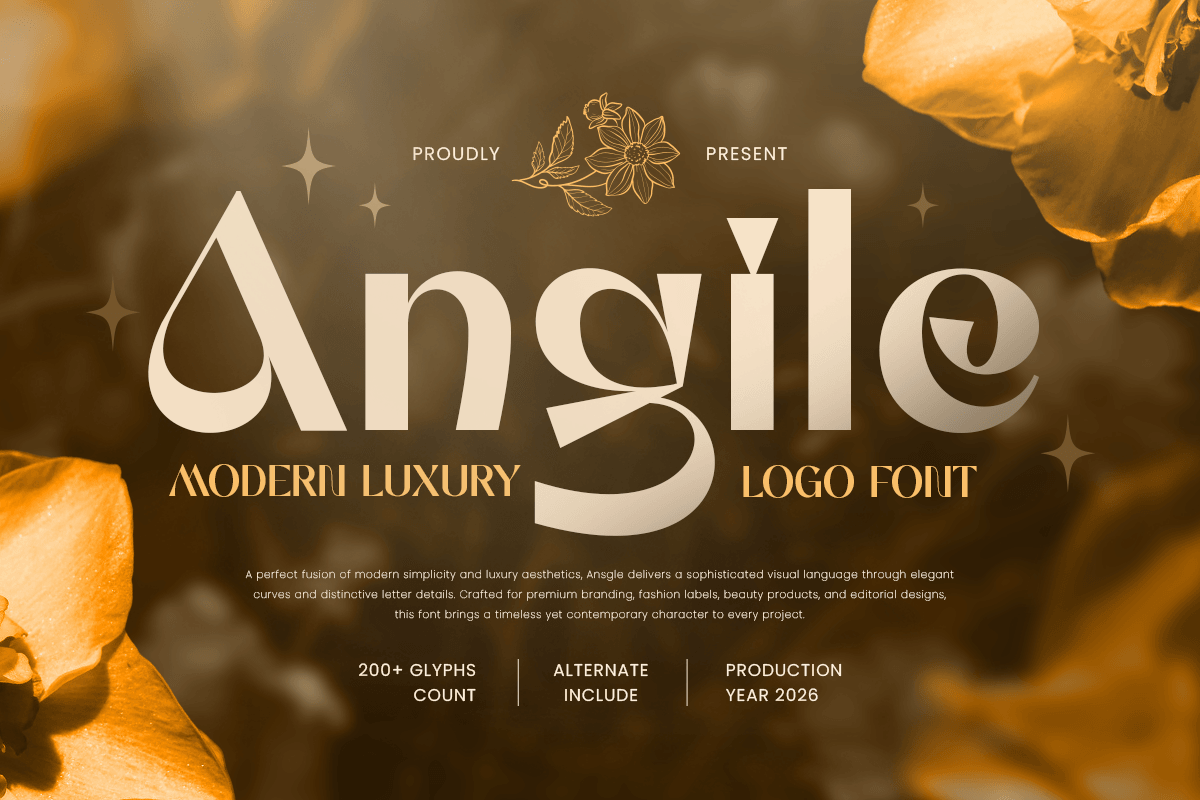
Angile
-Modern Luxury Logo FontAngile - Modern Luxury Logo Font
Angile is a modern luxury logo font that embodies sophistication, elegance, and contemporary style. Designed with refined proportions and graceful details, it delivers a premium aesthetic that elevates every design with confidence and timeless appeal. Its clean yet distinctive letterforms make it an ideal choice for designers seeking a luxury serif font that feels both modern and unforgettable.
Perfect for luxury branding, logo design, fashion labels, cosmetics, jewelry, boutique businesses, premium packaging, wedding stationery, editorial layouts, and high-end marketing materials, Angile offers exceptional versatility across both digital and print media. Whether used for striking headlines, elegant monograms, or sophisticated brand identities, it creates a polished and memorable visual presence.
With its balanced elegance and professional character, Angile is an excellent choice for creative professionals looking to build premium brand experiences. From social media campaigns and product packaging to magazines, websites, signage, and luxury advertisements, this font helps communicate exclusivity, refinement, and modern prestige.
Angile – Modern Luxury Logo Font Features
Elegant modern letterforms with a premium luxury aesthetic
Perfect for logos, branding, editorial, and luxury packaging
Ideal for fashion, beauty, jewelry, hospitality, and wedding projects
OpenType features for enhanced creative flexibility
Excellent for social media, magazines, signage, and premium marketing materials